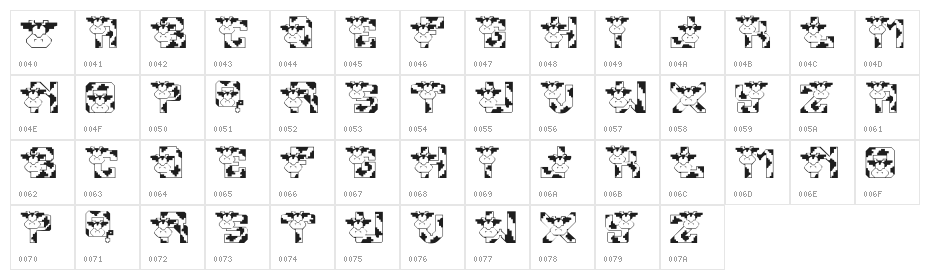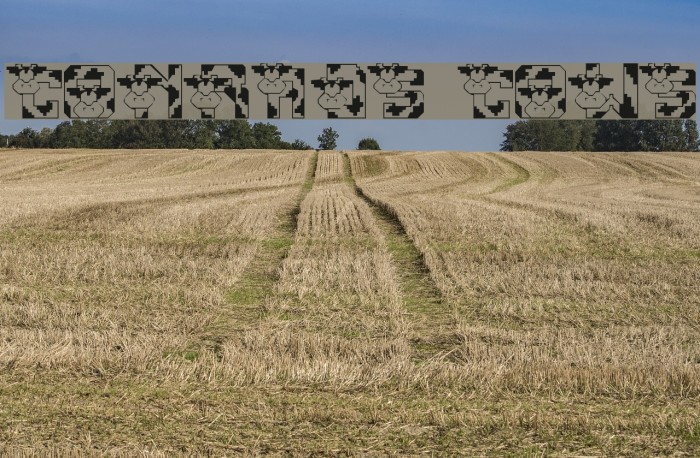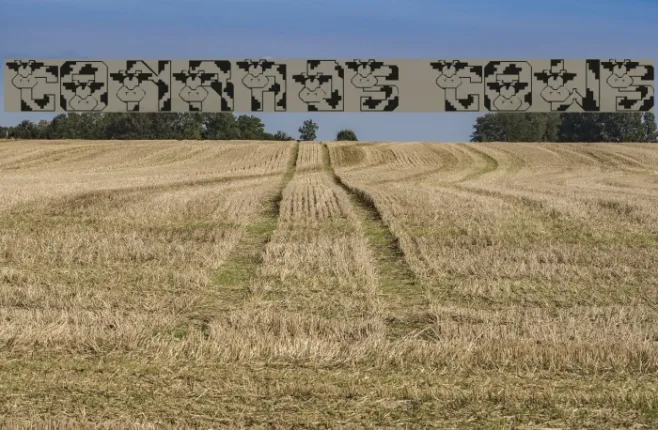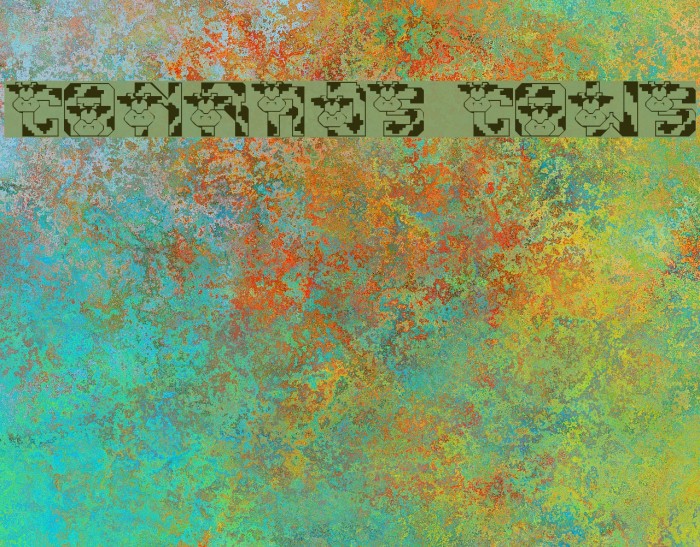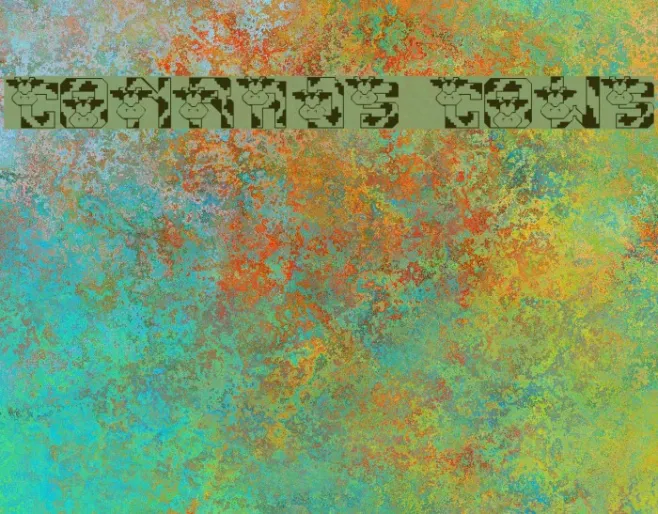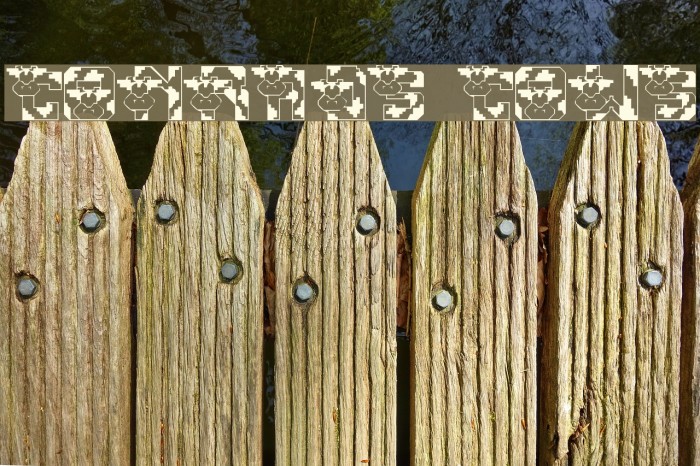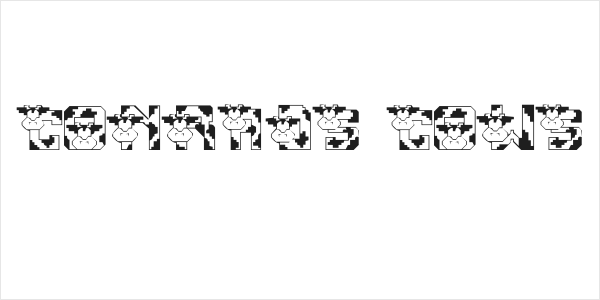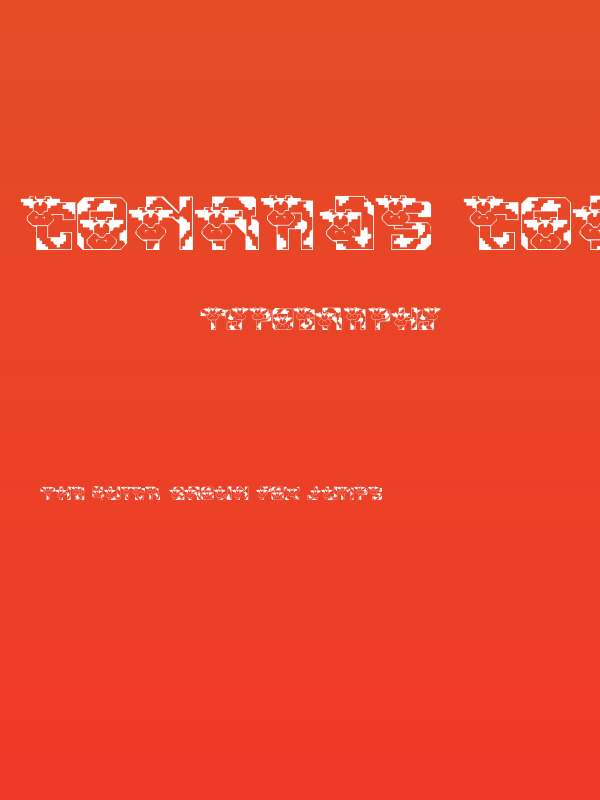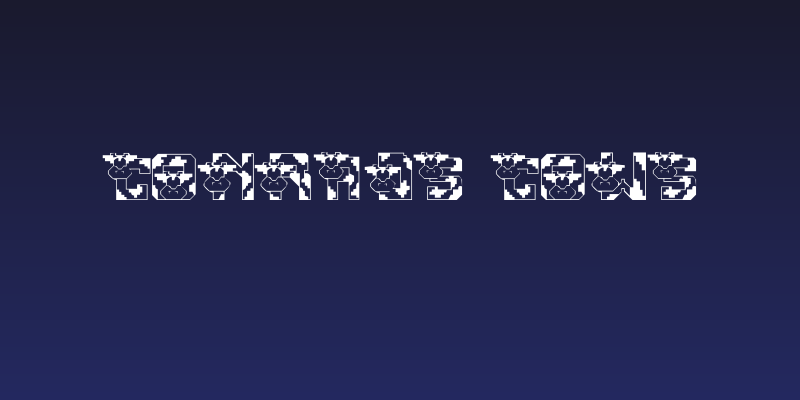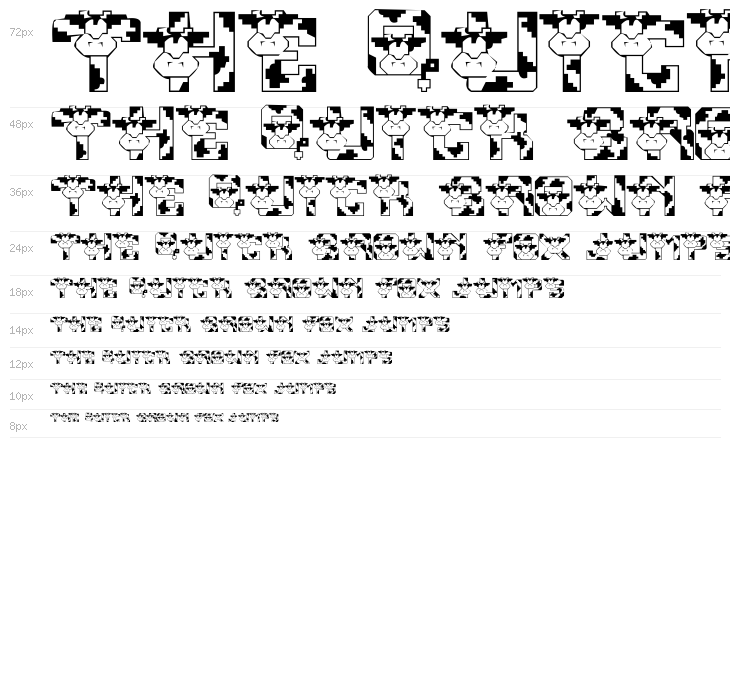
Conrads Cows Font
Conrads Cows Description
This playful and whimsical font features characters that are creatively integrated with cartoon cow illustrations. Each letter is uniquely designed to incorporate a cow's face and body, adding a humorous and lighthearted touch. The font is highly decorative, making it ideal for projects that require a fun and engaging visual element. The characters are bold and have a consistent width, ensuring readability despite their intricate design. This font is perfect for children's books, playful branding, or any project that aims to evoke a sense of joy and amusement.
| Proposed Projects | Ideal for children's books, playful branding, party invitations, and fun posters. |